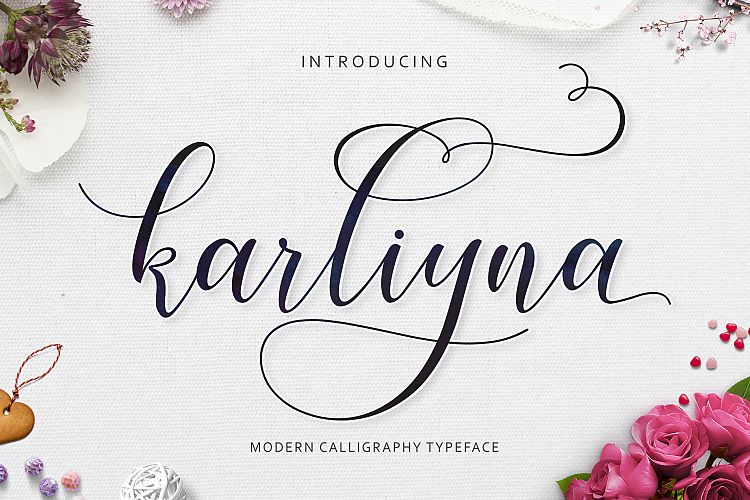
Karliyna Script Font
Hi Font Lover! This is a modern calligraphy font with the current handwriting style. Introducing Karliyna Calligraphy Font. Karliyna Font designed and shared by MJCLetter. Karliyna Script Font is modern script font, every single letters has been carefully crafted to make your text looks beautiful. With modern script style this font will perfect for many different project, example: invitations, greeting cards, posters, name card, quotes, blog header, branding, logo, fashion, apparel, letter, stationery and more !